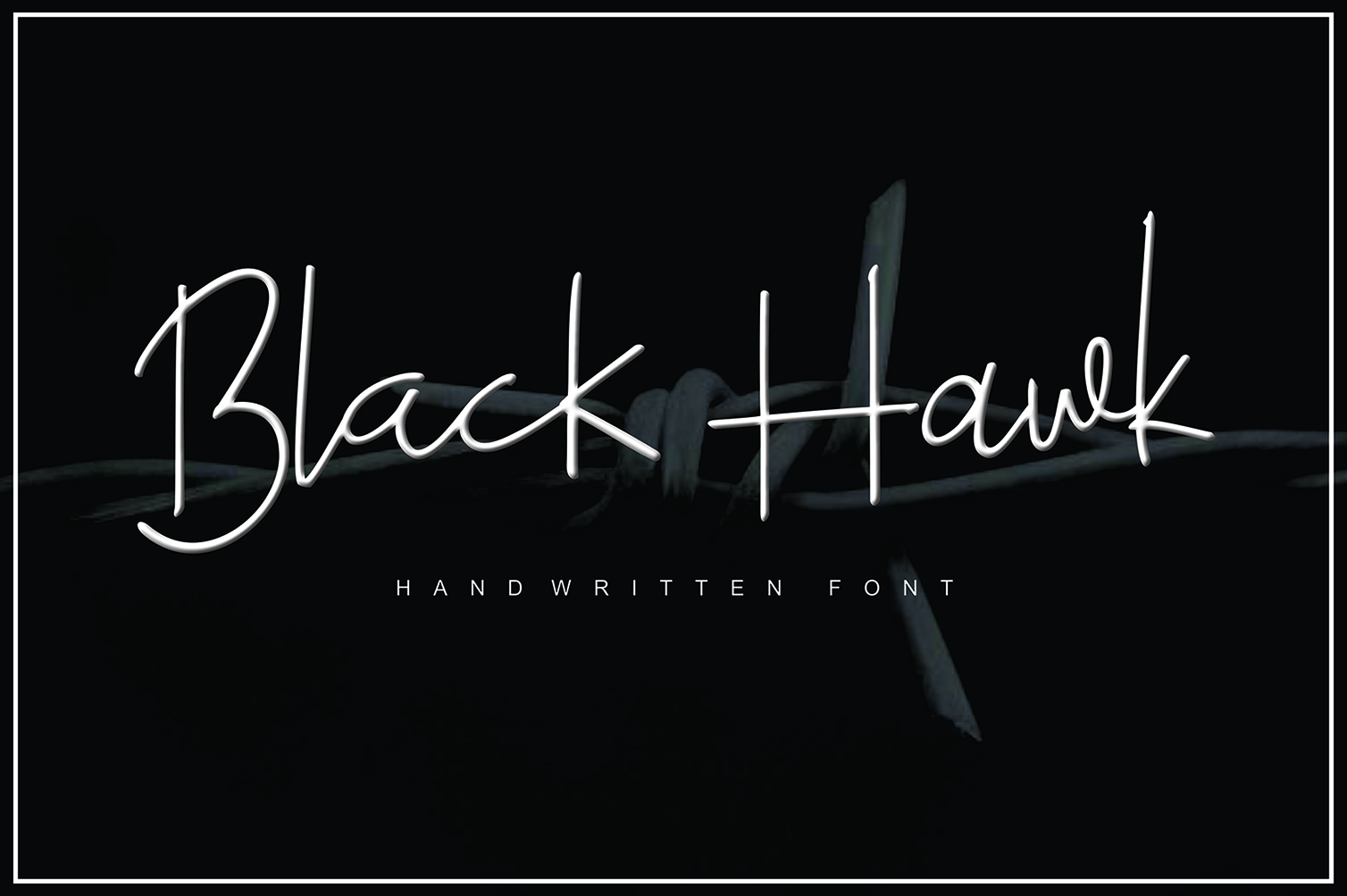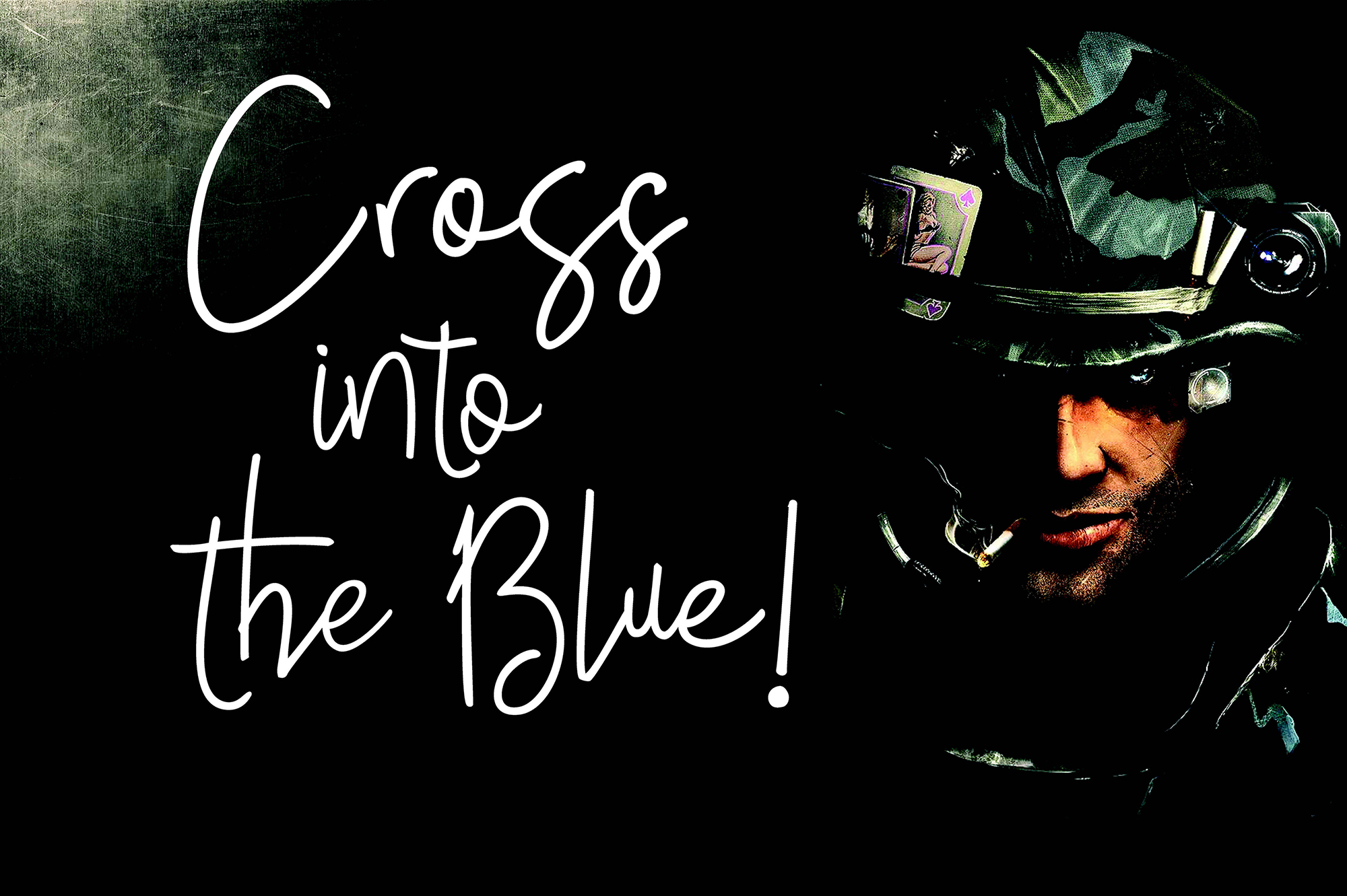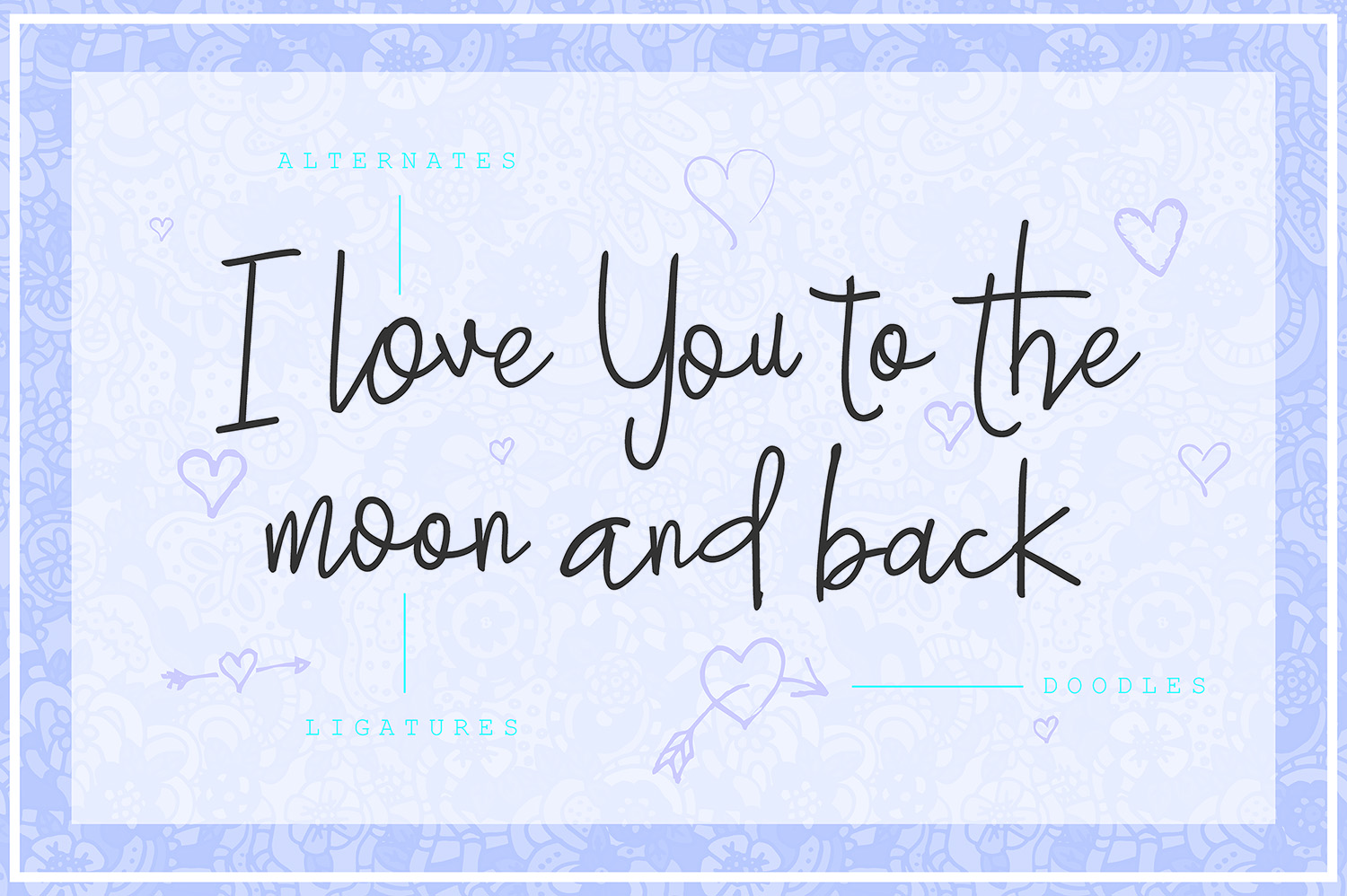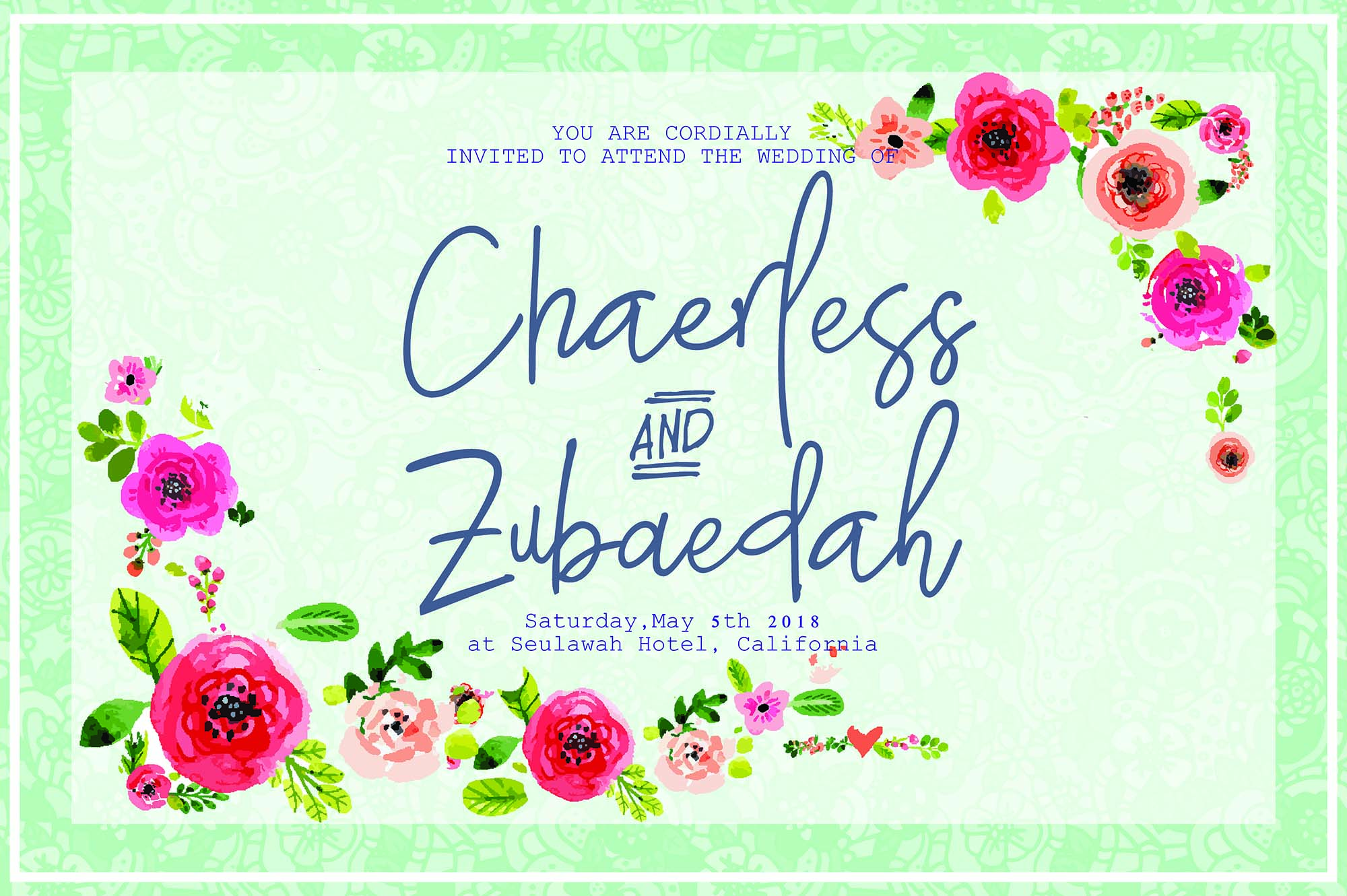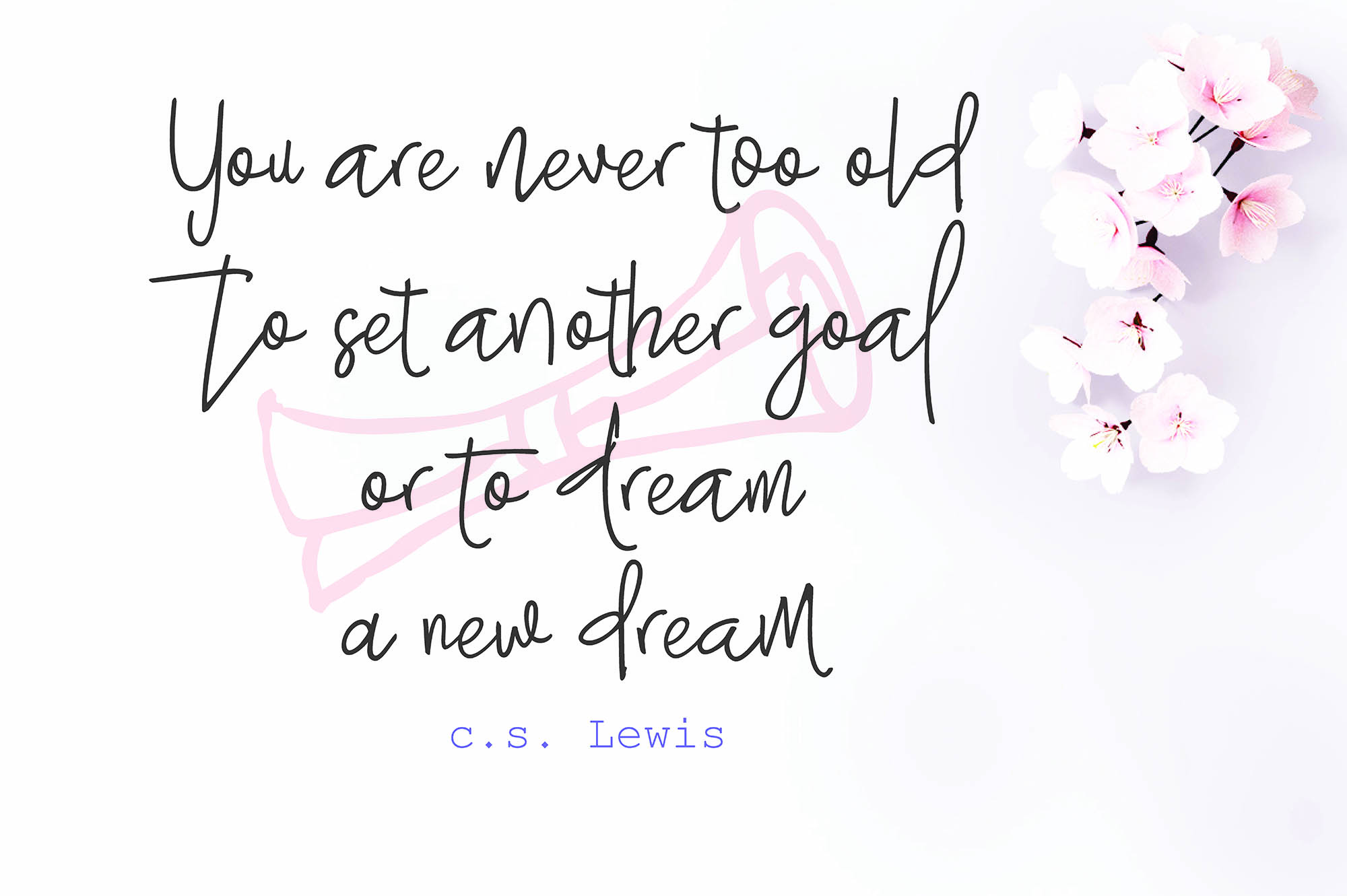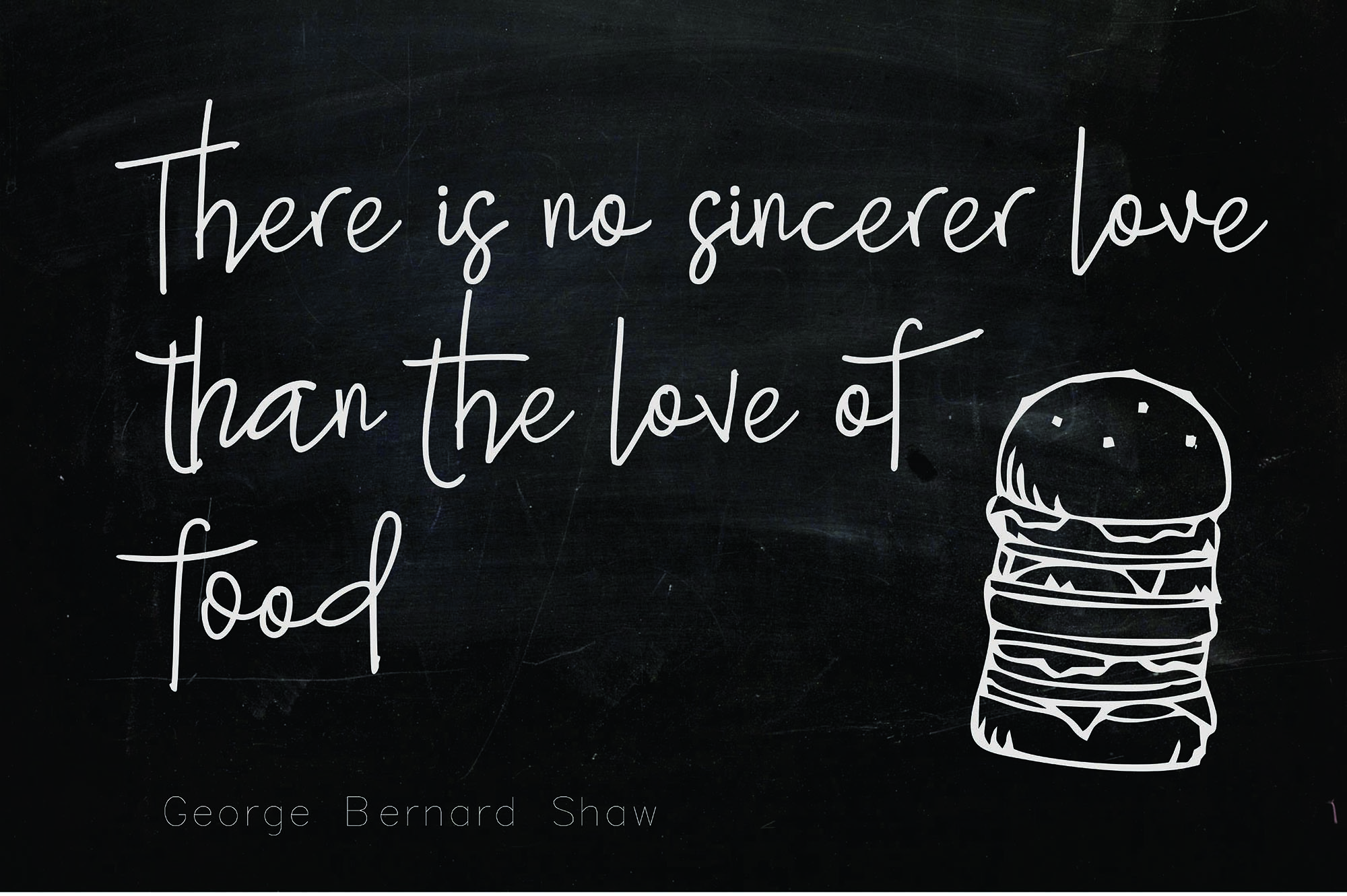
Black Hawk Font
About Black Hawk Font
Black Hawk is an amazing and new handwritten font, perfect for creating hand-lettered text with an authentic feel. This is a signature font that is both modern and elegant.